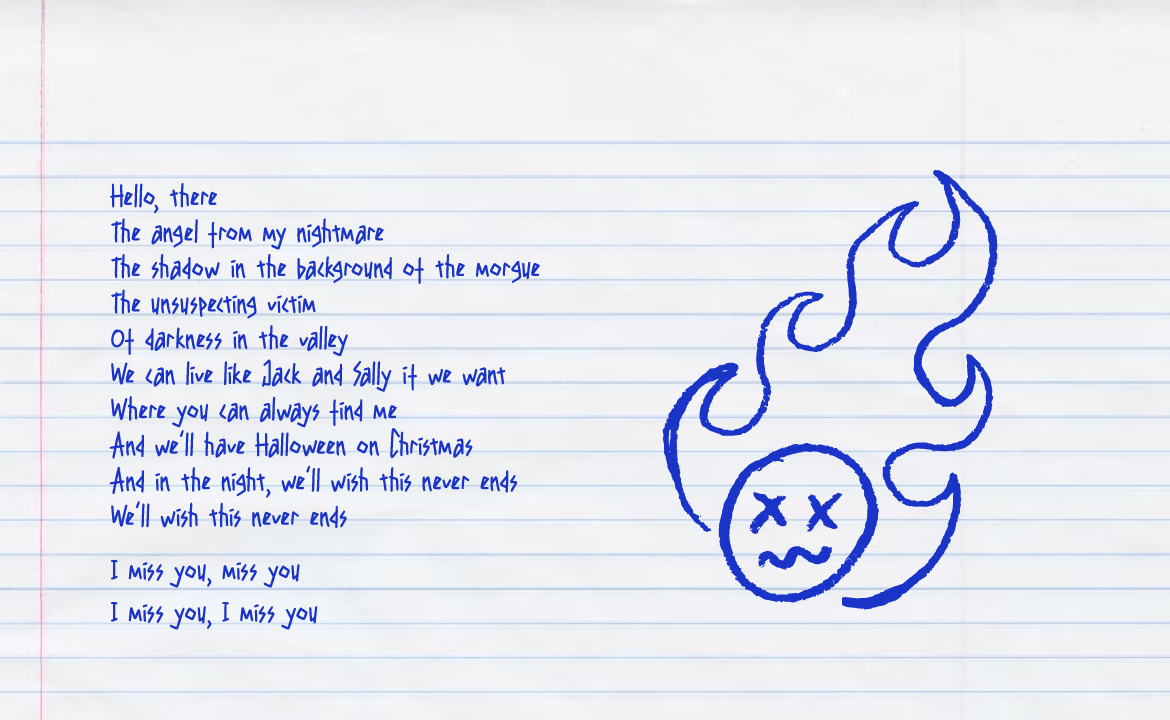
Tugirlsparow - A Pen-Crafted Font
Tugirlsparow is a charming handwritten font created with the smooth touch of a pen. It brings a personal and elegant feel to your design — perfect for branding projects, wedding invitations, social media posts, quotes, product packaging, and more.
This font combines casual handwriting with graceful curves, creating a balance between simplicity and sophistication. Tugirlsparow is designed to make your text look warm, authentic, and effortlessly stylish.
Make your next project stand out with the natural beauty of Tugirlsparow — a handwritten font that speaks with personality and charm.